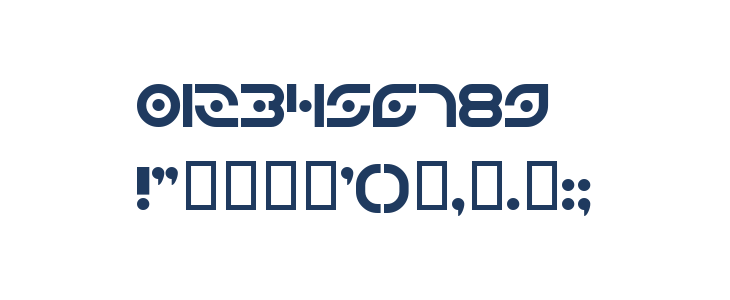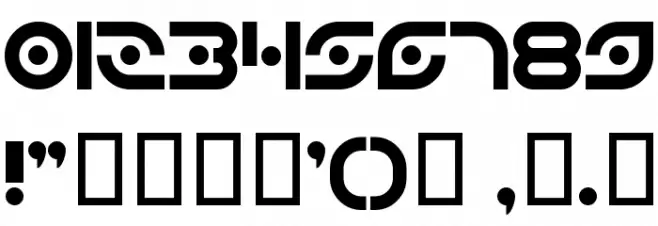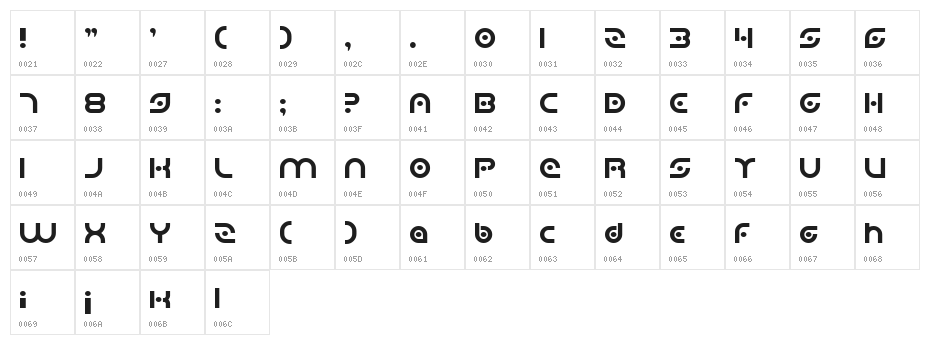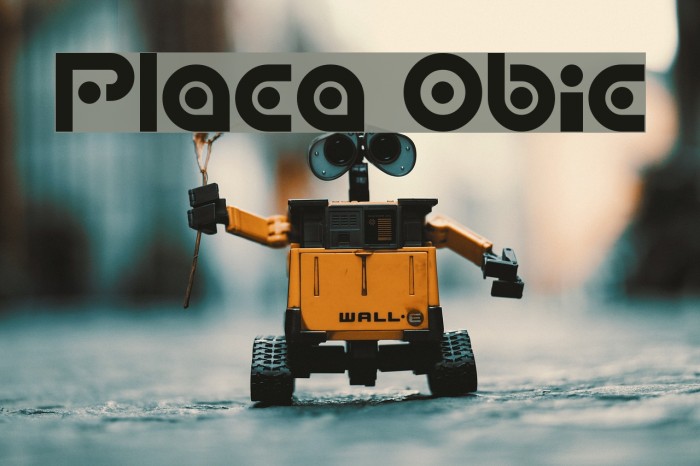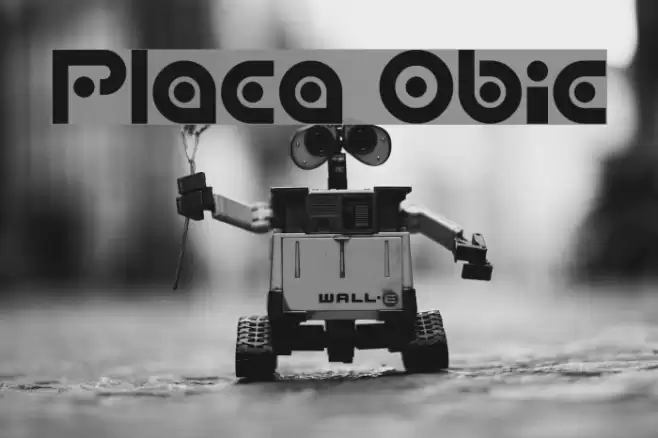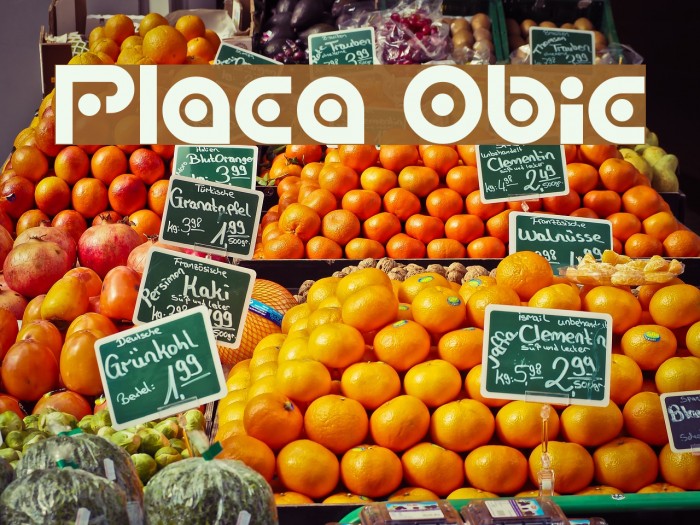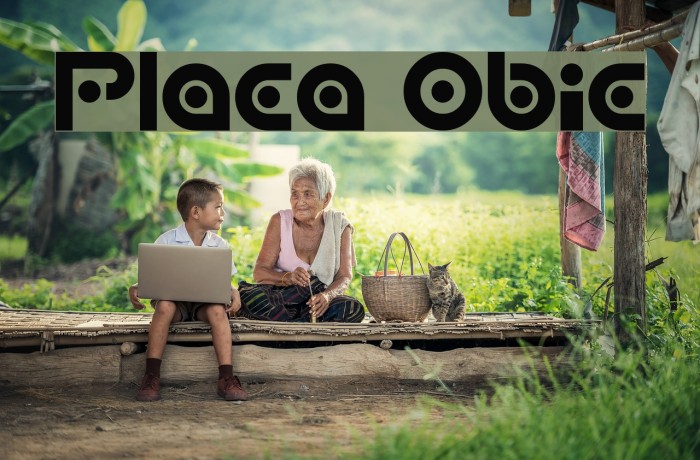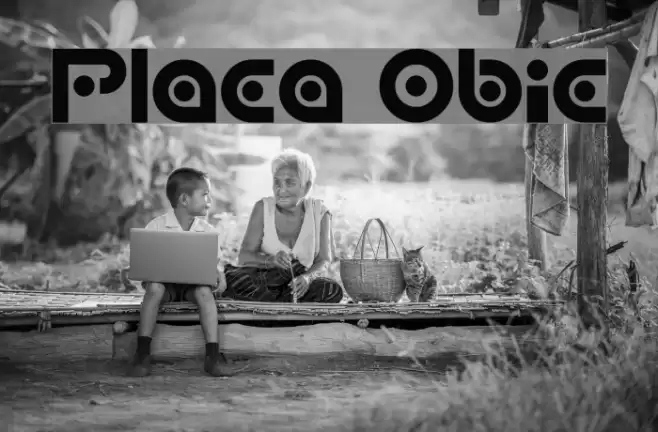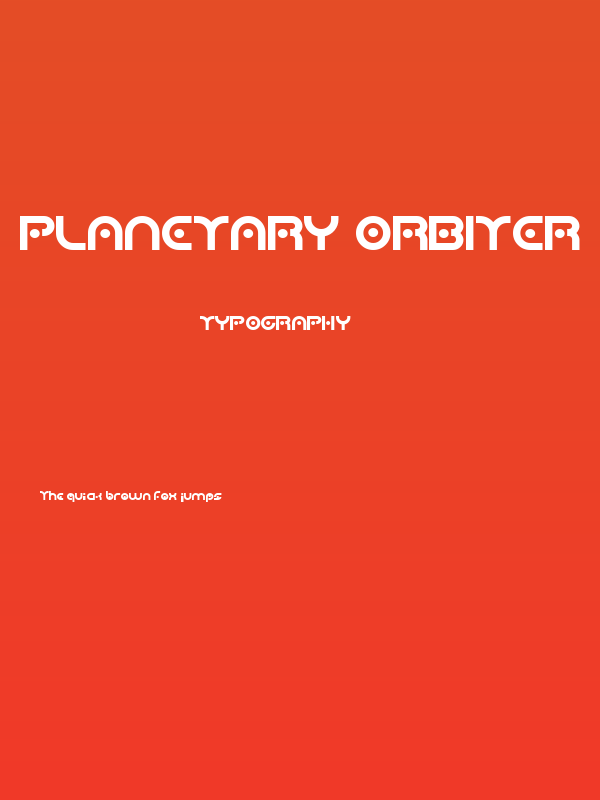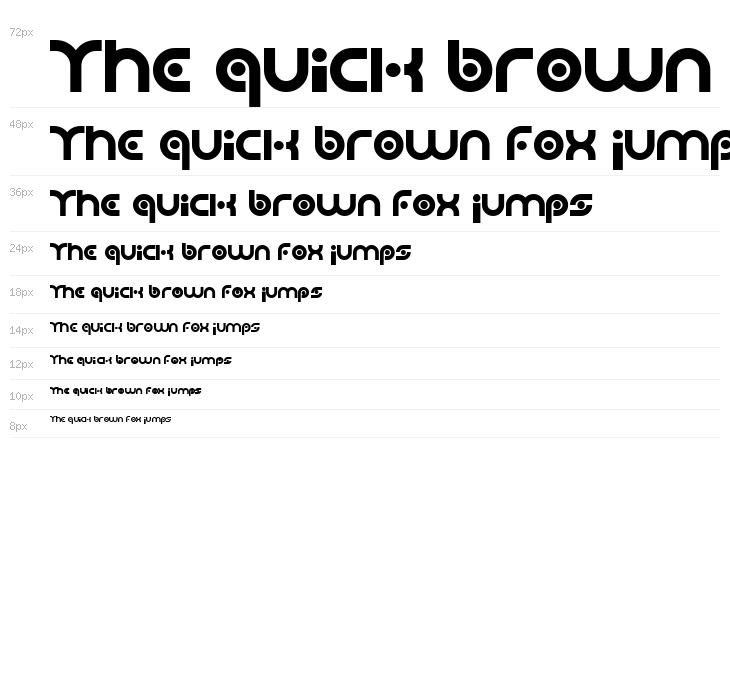
Planetary Orbiter Font
Planetary Orbiter Description
This font features a futuristic and geometric design, characterized by its bold and rounded letterforms. The characters are constructed with a consistent thickness, creating a uniform appearance that emphasizes a modern aesthetic. The use of circular and semi-circular shapes gives the font a unique, orbital feel, reminiscent of space and technology themes. The uppercase and lowercase letters maintain a cohesive style, with subtle variations that add interest without sacrificing readability. The numerals and special characters are designed to match the overall theme, ensuring a seamless integration across different uses.